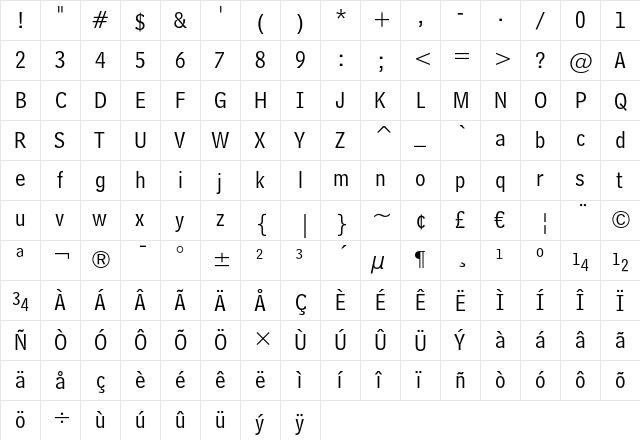
Bell Centennial Address
Design Context for Bell Centennial Typeface
Bell Centennial takes a measured approach to typography — its balanced proportions and neutral character make it a reliable workhorse for both digital and print work.
Pro Tip: Use Bell Centennial in both headline and body roles to test its range before committing to a single application.